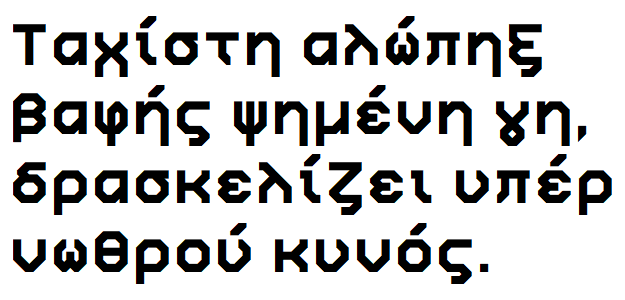
• A neat and legible blocky font created by Se7enty-Se7en...
looks rock solid Se7en, realy nice job..
It's kinda like a hybrid style of Wim Crouwel and Jurriaan Schrofer combined.
I might have one suggestion, I think accents on uppercase "I" dont really work well.. the thickness eats too much space the glyph doesn't have right now! One option is to cut some weight off the accents. Another is to increase side bearing. You could fix this with spacing as well, but this is very undesireable since it affects the entire font
Option 1: If I do that, they might not be as visible on older systems (such as Windows XP), Option 2: I would, but it'd create some sort of a gap in words with accented I's
Added Basic Greek!
Added Buginese (Cannot find a pangram for that language...)
Most futuresque unicode I've ever seen, I really like it!
t e n    m i l l i o n    g l y p h s
@KyYay The limit on the numer of glyphs per font is 2¹⁶ or 65,536... And 10,000,000 is more than the number of available codepoints (1,114,112)...